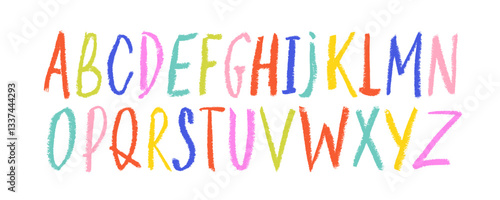
Crayon drawn childish cute font. Hand-drawn colorful simple vector alphabet. Rough doodle font drawn with wax crayon, pencil or pastel. Scribbled kid's typography. Color pencil children letters.